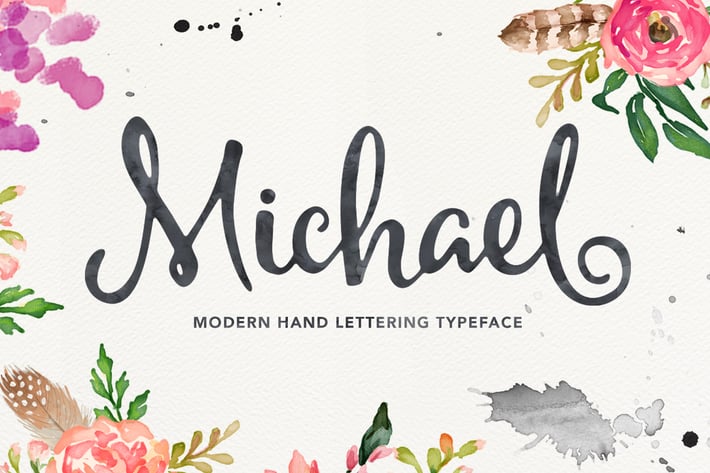
Michael Font Script
Michael Font Script, this font was created to help you design a brand of your own or your client, and you also can use it for designing all of the graphics stuff such as a badge, sign, packaging, headline, T-shirt/apparel, Poster, etc.
Including tons of glyphs, initial and terminal letters, alternates, ligatures, and multiple language support.
Rough Version Added
Latin-X Accents Added